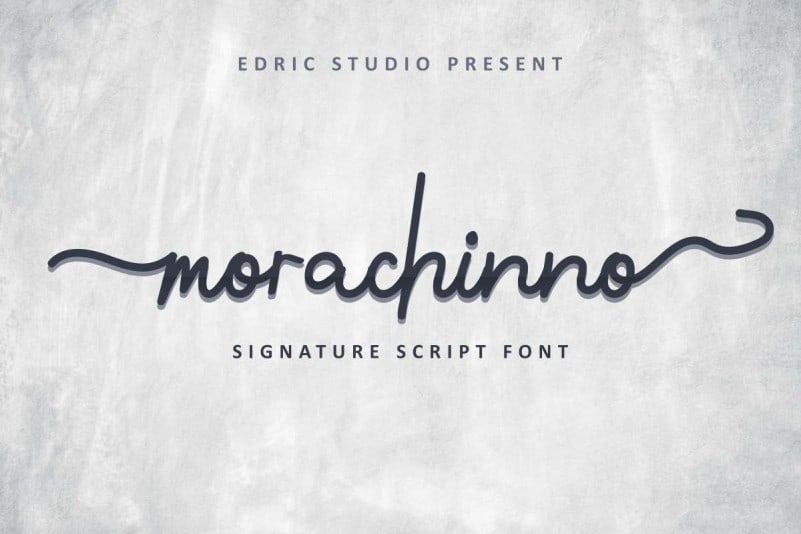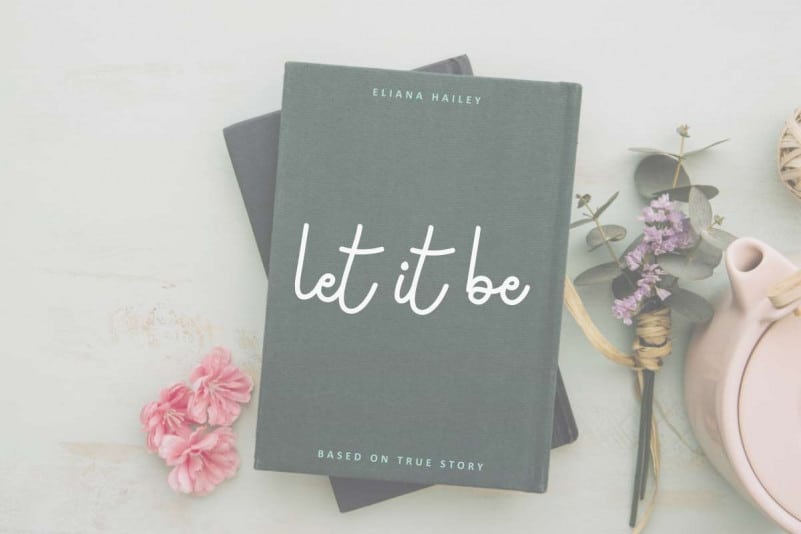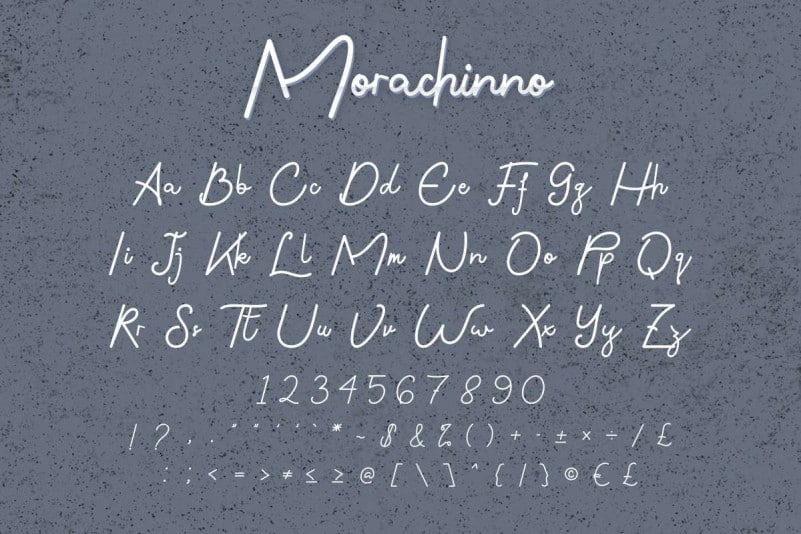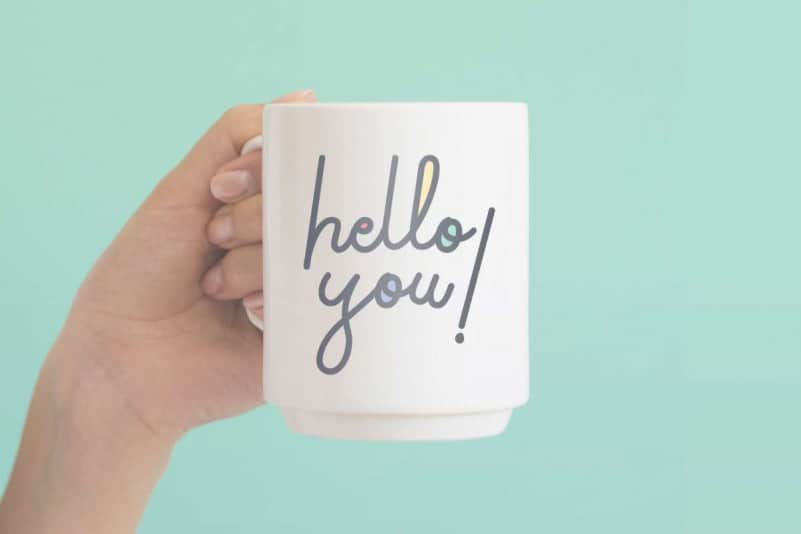
Morachinno Signature Font
Morachinno Signature Font is an exclusive stunning signature handwriting script typeface with stylish style. This font has a stunning characters set, perfectly managed with well spaced and kerning. The theme style of this font will elegant,  vintage, stylish, sophisticated and classic brush calligraphic style.